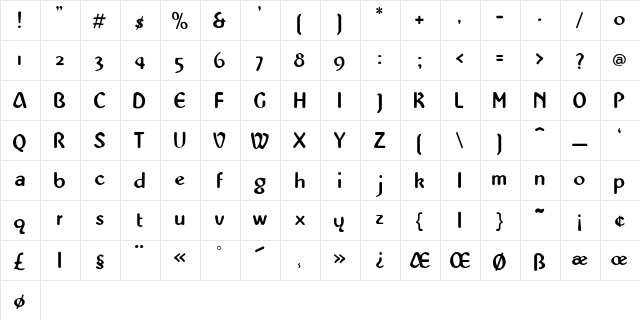
Karen-Medium Regular Font Preview
Karen-Medium Regular
Design Context for Karen-Medium Typeface
Karen-Medium is a composed and adaptable typeface that performs quietly and consistently across a wide range of design contexts.